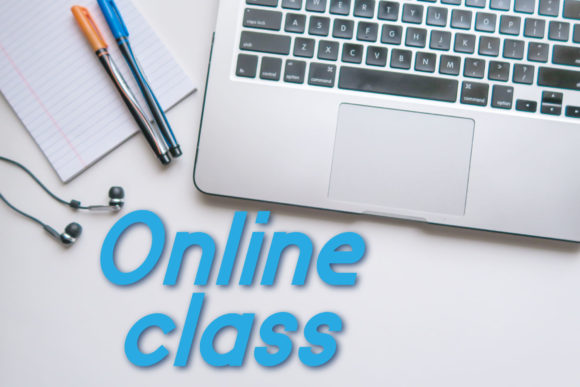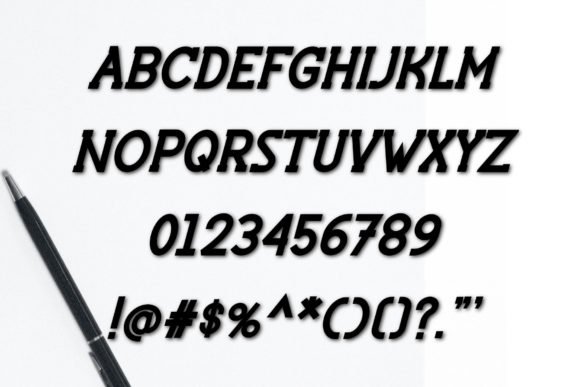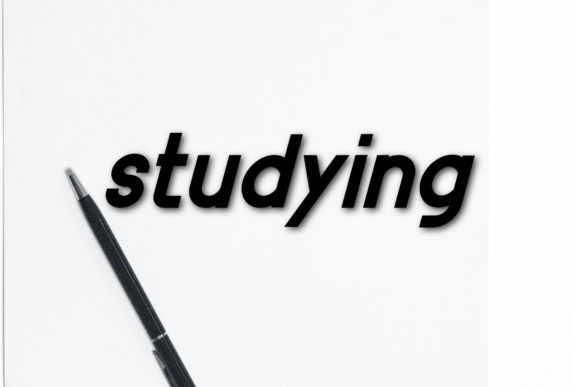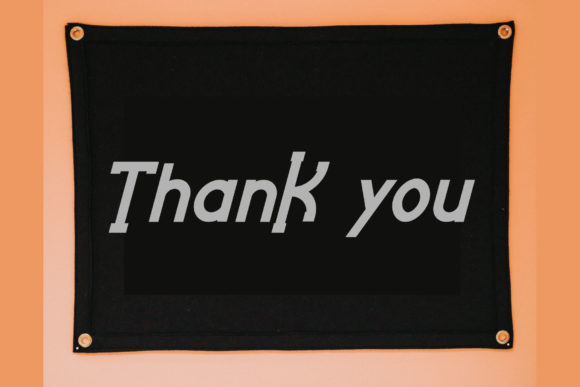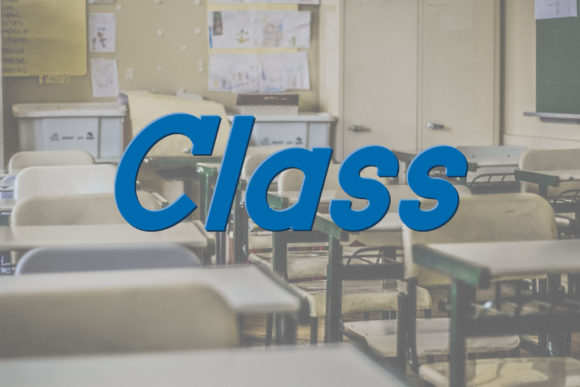
Introducing Class Font: Elevate Your Designs with Elegance and Versatility
Are you on the hunt for a font that embodies sophistication, elegance, and versatility? Look no further than Class Font, a minimal and neat serif font designed to make your creative projects stand out. With its classic charm and adaptability, Class Font is the perfect addition to your typographic arsenal, allowing you to elevate your designs and bring your ideas to life in style.
The Essence of Class Font
Class Font is characterized by its clean lines, subtle serifs, and a balanced aesthetic that exudes professionalism and refinement. Its minimalistic approach to design ensures that it remains unobtrusive, allowing your content to take center stage while still providing a touch of sophistication. This font is meticulously crafted to ensure legibility across various mediums, from digital screens to print materials, making it an incredibly versatile choice for a wide range of projects.
One of the standout features of Class Font is its incredible versatility. Whether you’re working on a branding project, a website design, crafting an elegant business card, or creating engaging editorial content, Class Font can be seamlessly integrated into your workflow. Its neutral yet distinctive style means it can complement a variety of design aesthetics, from modern minimalism to vintage elegance, without overpowering them.
Applications of Class Font
The potential applications of Class Font are vast and varied. Here are a few ideas to get you started:
- Branding and Logotypes: Use Class Font to create a lasting impression with your brand’s identity. Its elegant and professional look makes it ideal for crafting logos, wordmarks, and taglines that resonate with your audience.
- Web Design: Enhance your website’s typography with Class Font, ensuring a cohesive and sophisticated user experience. Its readability on digital screens makes it perfect for headings, body text, and captions.
- Print Materials: From business cards and brochures to magazines and books, Class Font brings a touch of class to any print project. Its clear and legible design ensures that your message is communicated effectively.
- Packaging: Stand out on the shelves with product packaging that utilizes Class Font. Its unique blend of modernity and tradition can help your product design feel both contemporary and timeless.
Why Choose Class Font?
Choosing Class Font for your projects comes with several benefits:
- Elegance: Adds a sophisticated touch to your designs.
- Versatility: Suitable for a wide range of projects and design styles.
- Legibility: Ensures your content is easily readable across different mediums.
- Timelessness: A classic design that won’t go out of style.
Class Font is more than just a typeface; it’s a design companion that can elevate your creative projects to new heights. Its blend of minimalism, elegance, and versatility makes it an indispensable tool for designers and crafters looking to make a statement. By incorporating Class Font into your projects, you’re not just choosing a font; you’re embracing a design philosophy that values clarity, sophistication, and impact. So why wait? Explore the possibilities with Class Font today and discover how it can transform your designs.